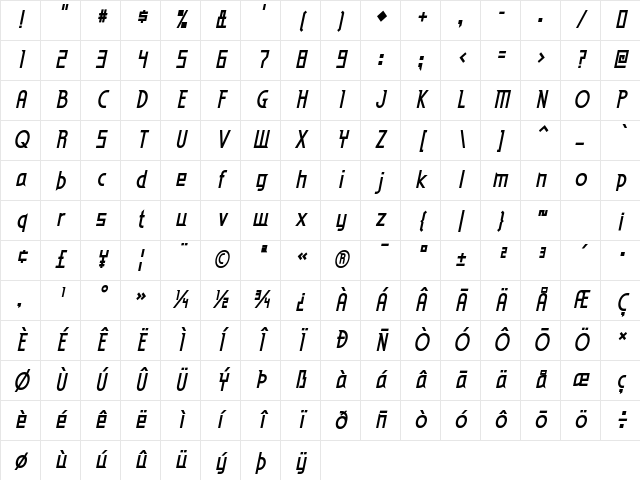
Eden Mills Bold Italic
Design Context for Eden Mills
Eden Mills is a composed and adaptable typeface that performs quietly and consistently across a wide range of design contexts. The slanted form adds forward momentum and visual energy. Its bold stroke weight gives it real presence on the page.
Pro Tip: Use Eden Mills for emphasis, pull quotes, and subheadings where its slanted energy can add rhythm to the layout.